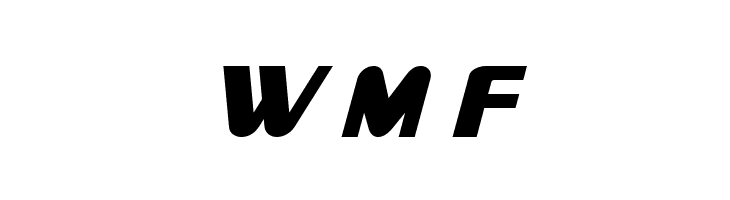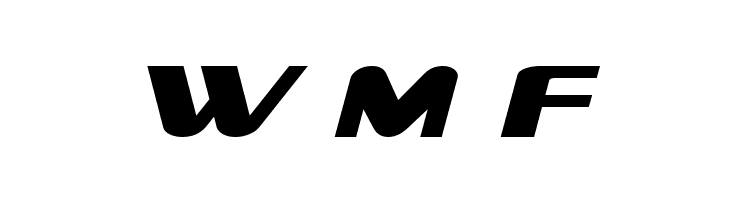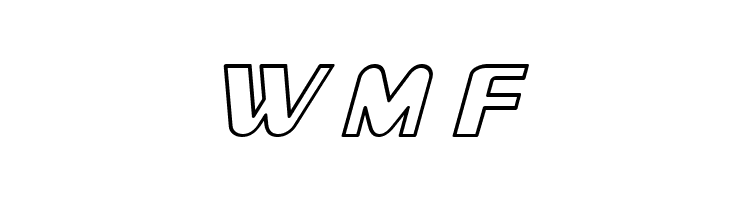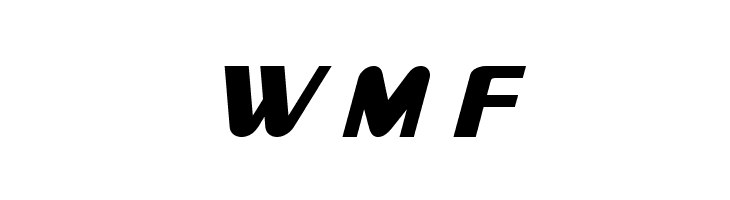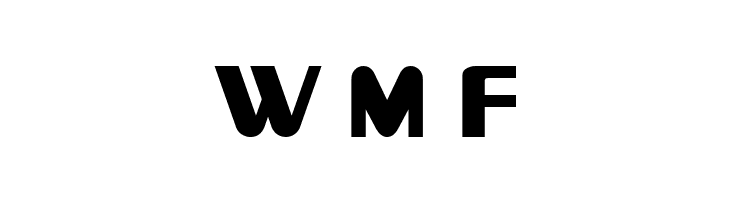
A bold, high-contrast font with a dripping effect, ideal for dramatic and spooky designs.
A bold, distorted font with a playful, dynamic style.
A bold, distorted font with a playful, chaotic style.
A bold, playful outline font with a whimsical, distorted appearance.
A bold, playful font with a three-dimensional shadow effect.
A bold, geometric font with a modern and industrial style.
A bold, geometric font with strong, angular lines and a commanding presence.
A bold, italicized font with a dynamic and angular design.
A bold, condensed font with a geometric and vintage-inspired design.
A bold, condensed italic font with high contrast and tight spacing.
A bold, geometric font with a classic yet modern Hollywood-inspired style.
A bold, italicized font with wide, extended characters and sharp angles.
A bold, italic font with sharp angles and a modern, dynamic style.
A bold, geometric typeface with a modern and uniform appearance.
A bold, italic font with a dynamic and modern style.
A bold, futuristic font with a geometric and dynamic style.
A bold, extended italic font with a modern and dynamic style.
A bold, modern italic font with a dynamic and sleek design.
A bold, outlined, modern geometric font with consistent stroke thickness.
A modern, italicized outline font with bold, dynamic characters.
A pixelated, retro-style font with a blocky, digital appearance.
A playful, dynamic font with exaggerated, uneven letterforms and a bold presence.
A bold, decorative font with exaggerated proportions and dynamic energy.
A bold, oblique font with a dynamic and modern style.
A bold, playful font with uneven strokes and a dynamic, hand-drawn style.
A dynamic, oblique font with a modern, energetic style.
A bold, oblique font with a dynamic and modern style.
A bold, shaded font with a three-dimensional effect, ideal for striking designs.
A bold, shaded oblique font with a three-dimensional effect.
A bold, narrow, and modern font with an industrial feel.
A bold, Gothic-inspired font with tall, narrow characters and strong vertical emphasis.